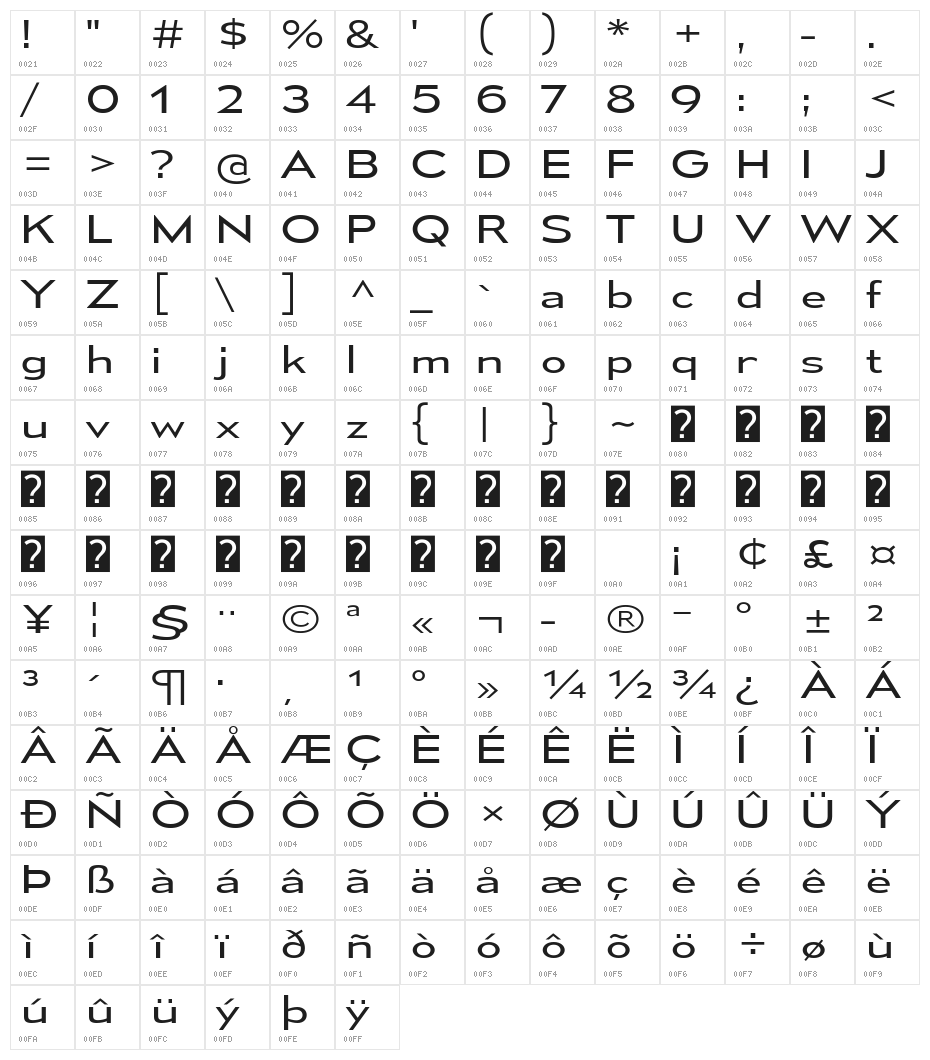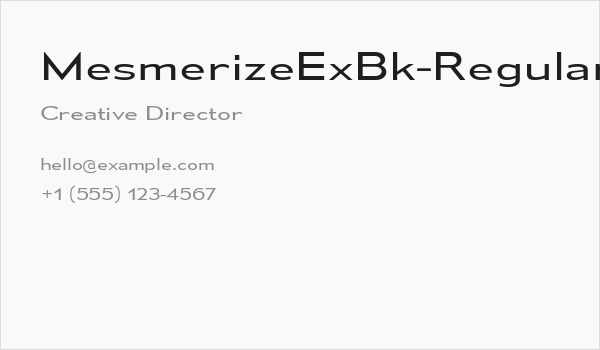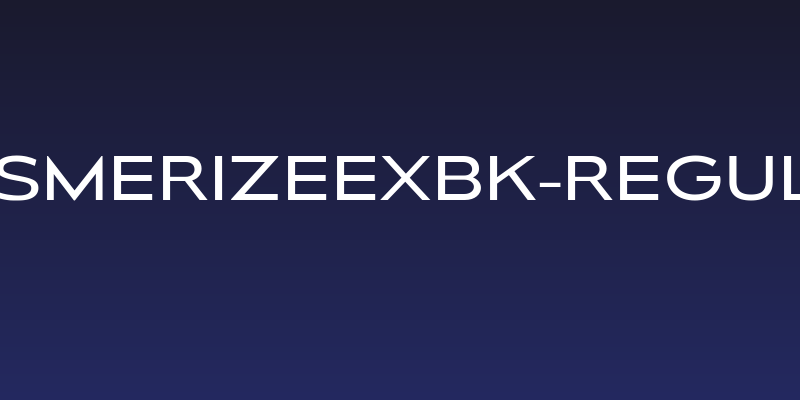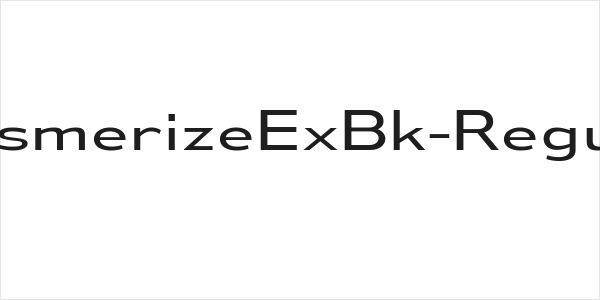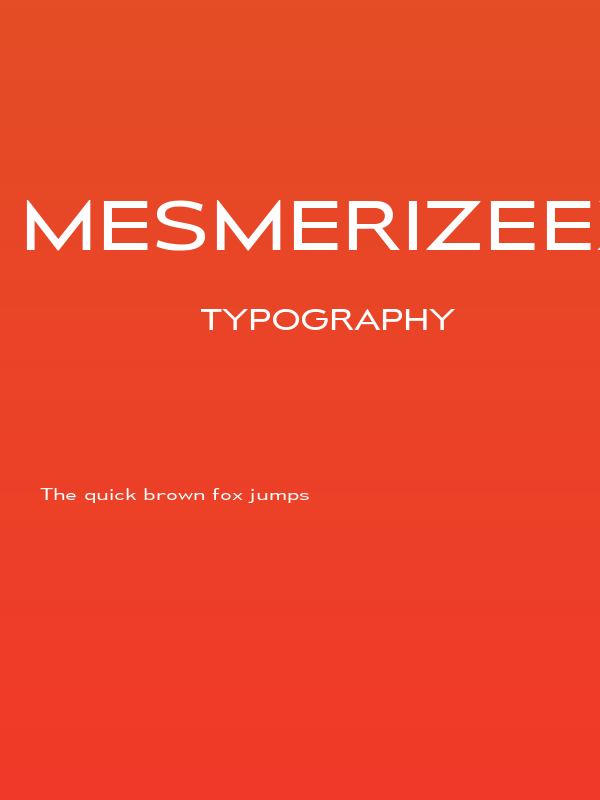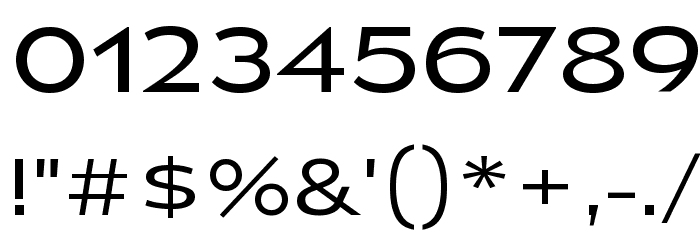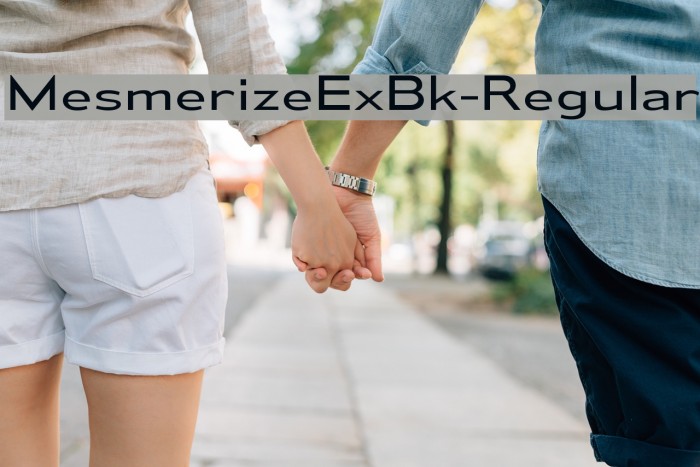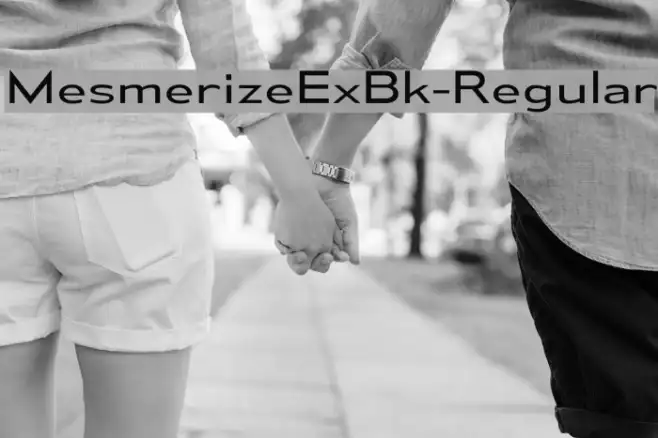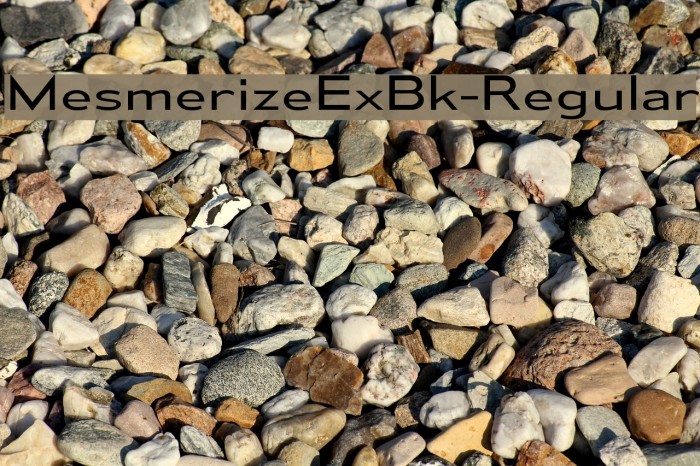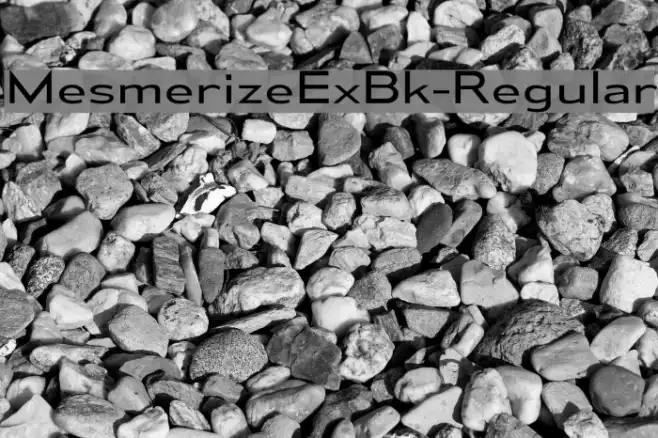
MesmerizeExBk-Regular Font
MesmerizeExBk-Regular Description
This font exhibits a clean and modern aesthetic with smooth, geometric shapes and a balanced structure. The uppercase letters are bold and assertive, while the lowercase letters maintain a consistent flow with rounded edges. The numerals are clear and easy to read, making them suitable for various applications. Special characters are well-defined, adding versatility to the font. The overall design is sleek and professional, ideal for contemporary projects.